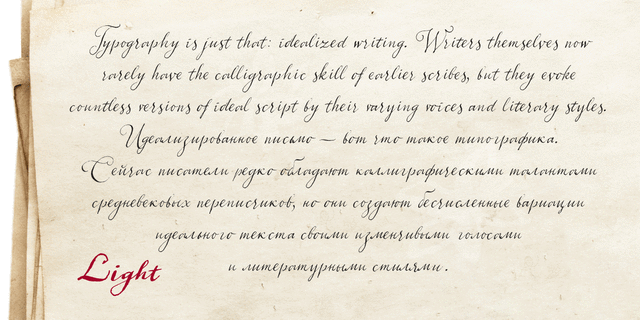
About Aphrosine is a font based on pointed pen script between handwriting and calligraphy. A huge lot of alternatives and smart OpenType features allow it to look almost indistinguishable from real live handwriting. The type is designed by Alexandra Korolkova and Alexander Lubovenko and released by ParaType in 2015.
easy, air, emotional, sensual, poetic, original, distinctive, female, playful, curly, mannered, openwork, lace, major, frivolous, windy, spring, intimate, sentimental, Curly, artistic, dancer, interesting, beautiful, decorative, elegant, feminine, epistolary, temperamental, inspired, lyrical, dashing, slovenly, fast, dynamic, freewheeling, picturesque, alive, fragile, passionate, craft brewed, creative, sexy, pretty, nice, Artisanal, quick, vegetable, sweeping, girlish, friendly, nervous, notable